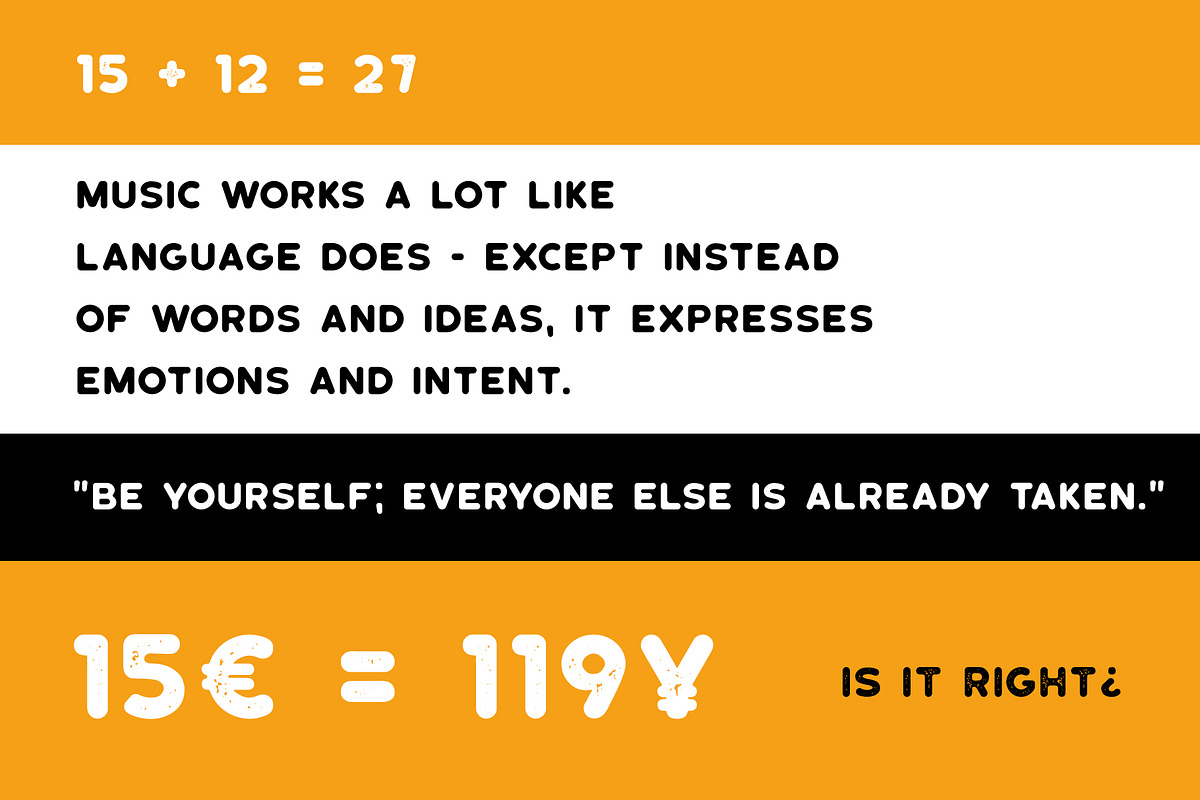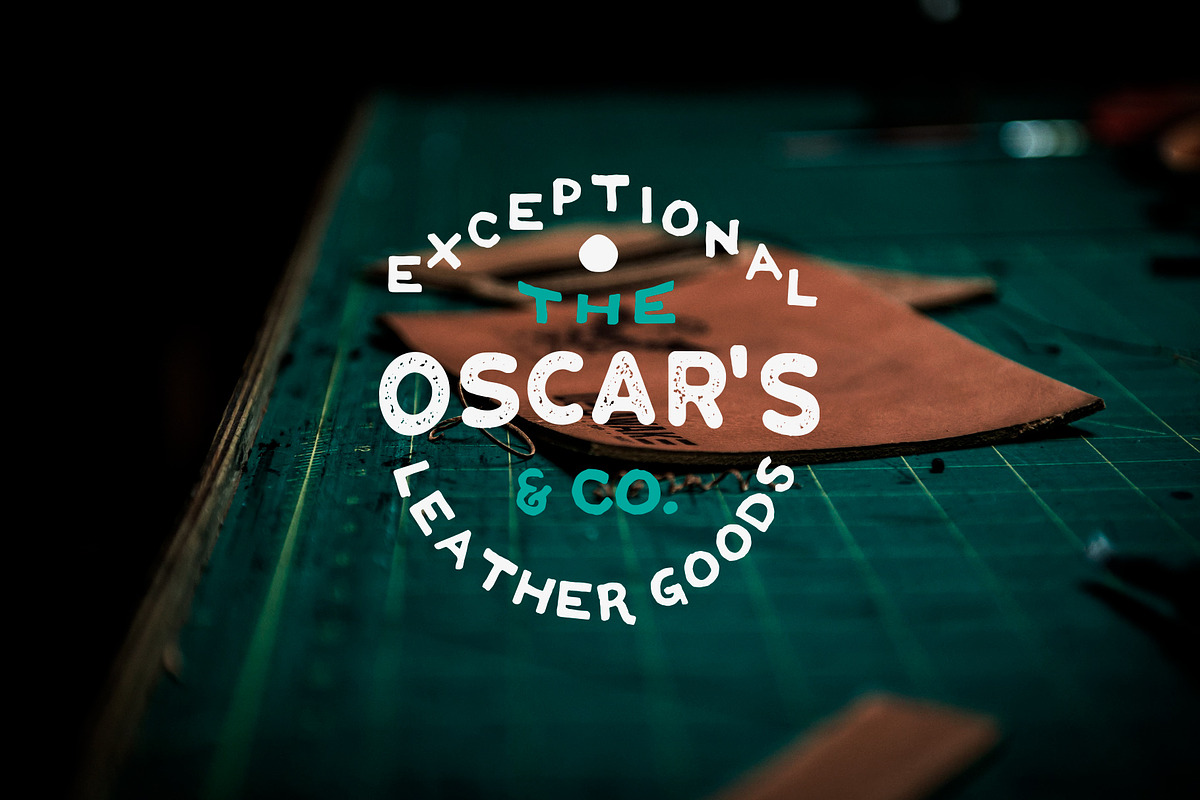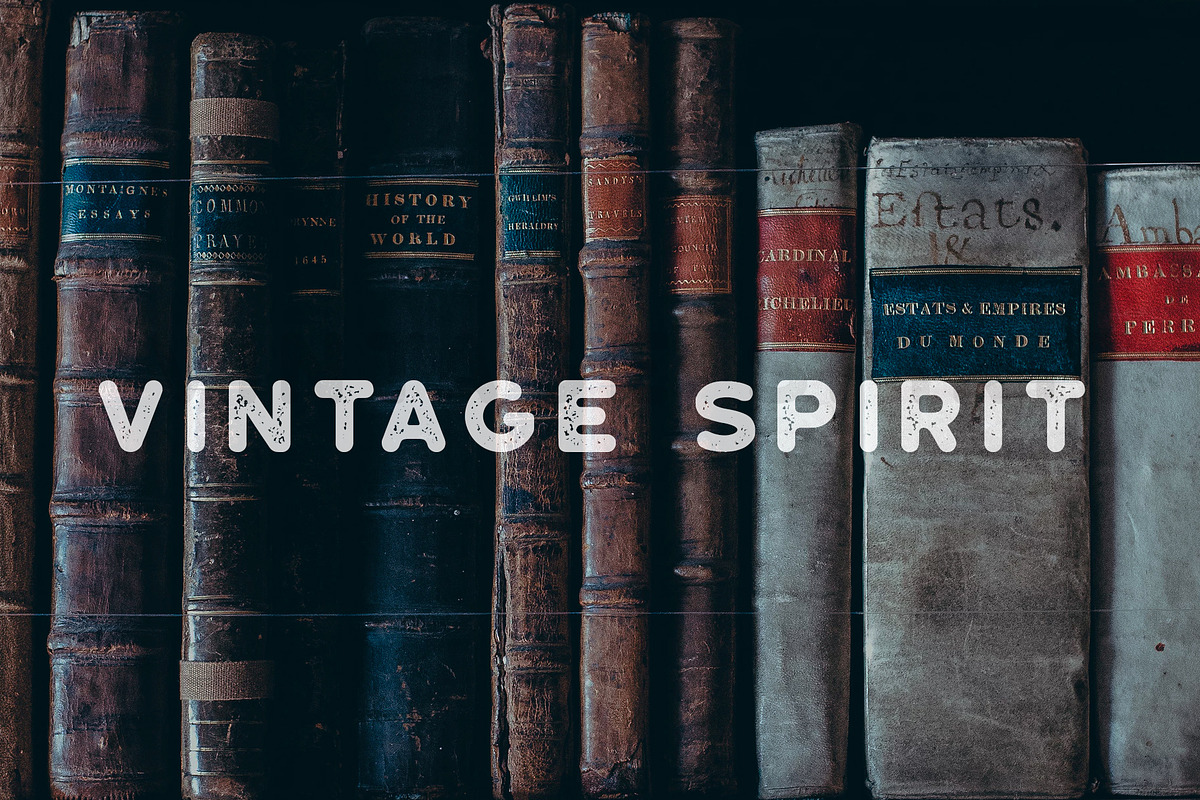
Roundhouse - Regular & Aged
Hi there! I'm very pleasured to introduce my the next vintage font - Roundhouse.
Based on Thunderbrother (download here - https://crmrkt.com/q40DK3), Roundhouse have round corners and smooth lines. In a design where sharp corners are not needed Roundhouse will be an excellent tool to make your logo / badge / typography design smooth and soft.
Roundhouse is presented in two styles:
- Regular: smooth clean lines, round corners
- Aged: Vintage distressed texture, little rough lines.
By combining these styles you will achieve the freshness of your design without losing a single style.